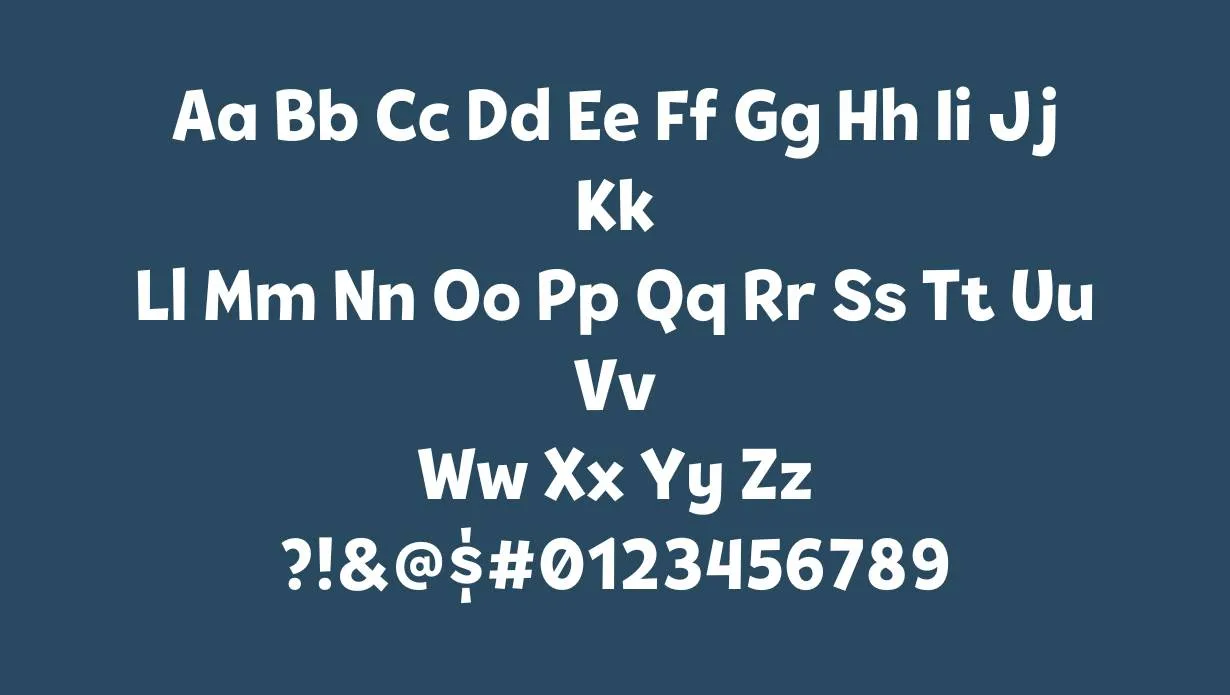
Tobi Font adds a playful and quirky touch to your designs. With its rounded and whimsical letters, this font is perfect for projects that seek a lighthearted and cheerful vibe.
Use it for children’s books, playful graphics, or any design where you want to infuse a sense of fun. The technical details of Tobi Font include a lightweight design and medium width, offering versatility for various applications.
| Name | Tobi Font |
| Designer | Andrey Kudryavtsev |
Tobi Font is crafted for projects that want to create a joyful and vibrant atmosphere, adding a touch of playfulness to their designs.